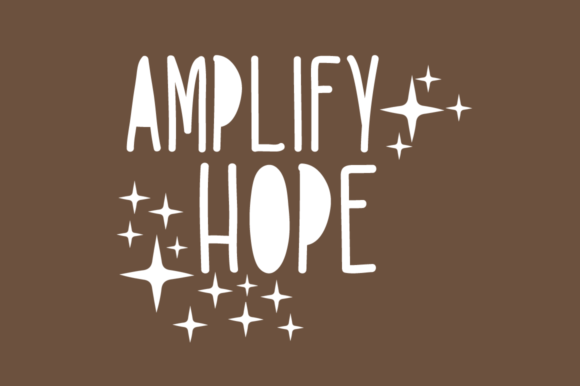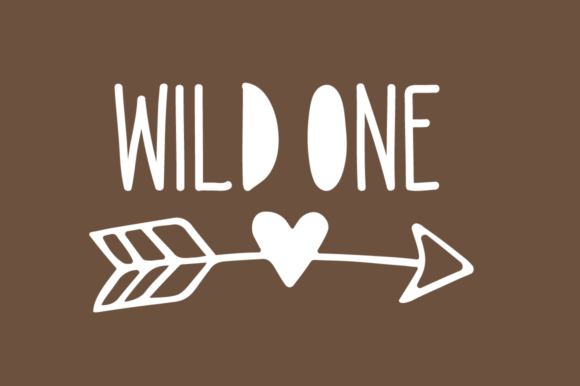
Introduction to Rekobip Additional Font
As a designer, have you ever stared at a blank canvas, searching for the perfect font to bring your creative project to life? The struggle is real, but what if I told you there’s a solution that can make your text stand out from the crowd? Enter the Rekobip Additional Font, a charming handwritten display font that’s about to become your new design best friend.
Imagine being able to add a personal touch to your designs with a font that’s as unique as you are. With the Rekobip Additional Font, you can do just that. This high-quality font features a transparent background, making it perfect for overlays, quotes, and other design elements that require a touch of elegance. And the best part? It’s a valuable design resource that’s available for free download, making it accessible to designers of all levels.
Key Features of Rekobip Additional Font
- High-quality design resource for creative projects, offering a unique and stylish look.
- Transparent background option for seamless integration with various design elements.
- Resolution-independent design ensures crisp and clear display at various sizes and resolutions.
- Perfect for use in graphic design, digital art, and other creative applications where a distinctive font is required.
Honest Review: Rekobip Additional Font
I recently had the chance to dive into the Rekobip Additional Font, and I must say it’s a hidden gem in the world of design resources. As a designer, I’m always on the lookout for high-quality fonts that can elevate my creative projects.
One of the standout features of the Rekobip Additional Font is its versatility. It comes in a range of styles, from bold and playful to elegant and sophisticated. ✨ I love how I can use it to add a touch of personality to my designs, whether it’s a logo, brochure, or website.
- What works well:
- Limitations:
- Some styles may be too bold for certain projects
- Not as extensive as some other font collections
Overall, I’m impressed with the Rekobip Additional Font. It’s a solid design resource that I’ll definitely be using in my future projects. If you’re a designer looking for a high-quality font to add some flair to your creative projects, I highly recommend giving it a try.
The Rekobip Additional Font is a high-quality design resource that can elevate your creative project to the next level. With its unique style and transparent background, this font is perfect for designers who want to add a touch of sophistication to their work.
To get the most out of the Rekobip Additional Font, try using it in combination with other design elements, such as bold colors and clean lines. You can also experiment with different font sizes and styles to create a unique look.
The Rekobip Additional Font is perfect for a variety of creative projects, including:
- Presentation design
- Document design